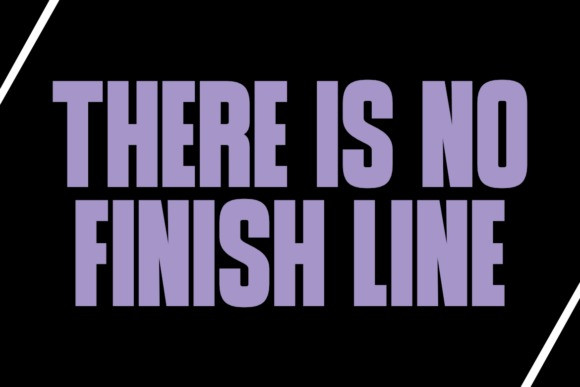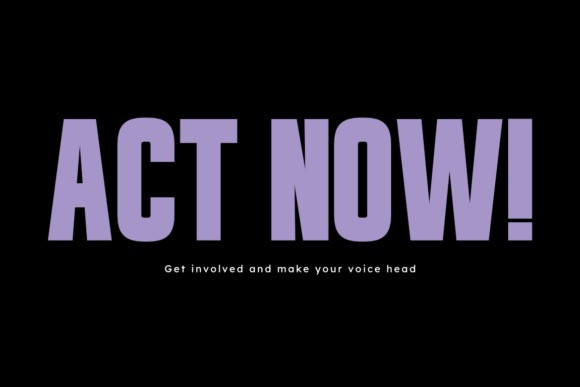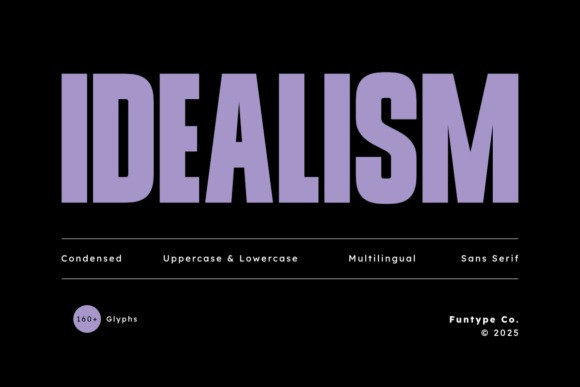
Idealism Font
Idealism Font is a versatile, powerful modern condensed sans serif font designed with both uppercase and lowercase letters for maximum utility and style. Its bold weight and tall, condensed structure create a strong, stable, and highly visible presence, perfect for branding, large-scale titles, editorial design, and impactful display use. Idealism provides extensive multilingual support and over 160 glyphs, making it a robust and professional choice for contemporary projects that demand a clean, assertive, and sophisticated aesthetic.